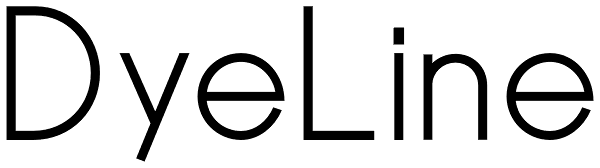
DyeLine
A modern geometric typeface influenced by architectural reproduction drawings such as blueprints and dyelines. The concept was to create a font that displays a simple elegance at large scale and would also be able to produce great legibility for...